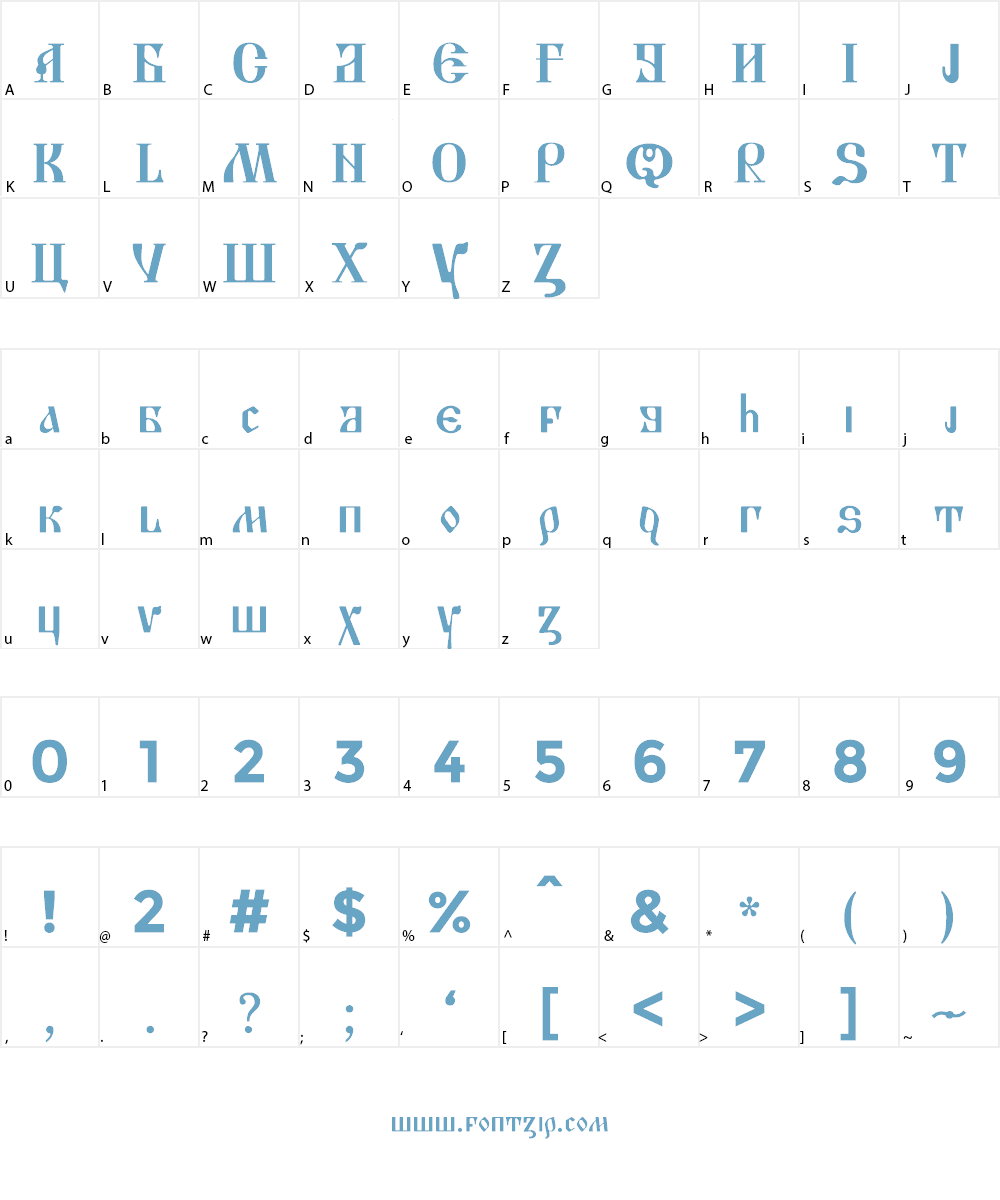
This font, made by me, is the another faux-Cyrillic font with a derivation of Dilyana font. It is made out of Montserrat font.
The capital "Q" had been a Glagolitic capital letter "Ⱉ(Otъ)"(due to any Cyrillic glyphs that look like the latin capital letter "Q" didn't been exsisted in Dilyana font).